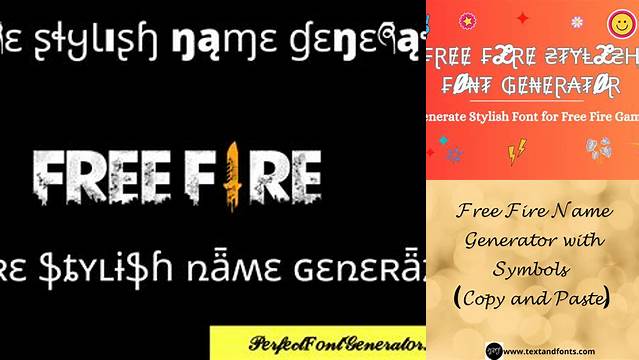
Stylish Free Fire Fonts: Generator, Copy & Paste Guide
Hey guys! Ever wondered how some Free Fire players have such cool and unique nicknames? Well, a big part of it is their font! If you're looking to stand out in the Free Fire arena and add some flair to your profile, you've come to the right place. In this article, we're diving deep into the world of Free Fire font generators, showing you how to copy and paste your way to a stylish nickname that'll make you the envy of your squad. Let’s explore everything you need to know about making your in-game name truly pop!
What are Free Fire Font Generators?
So, what exactly are these font generators we're talking about? Think of them as your personal nickname stylists! Free Fire font generators are online tools that allow you to convert regular text into a variety of fancy and stylish fonts that aren't typically available on your keyboard. These generators use Unicode characters – a vast collection of symbols and characters – to create these unique looks. This means you're not actually changing the system font on your device, but rather using special characters that resemble different font styles. The coolest part? You can copy and paste these fonts directly into Free Fire, making it super easy to change your nickname and add some pizzazz to your profile. With a Free Fire font generator, you can transform your mundane nickname into a memorable moniker that screams your personality. Whether you're into gothic, cursive, bold, or even bubbly fonts, there's a style out there for everyone. The best part is that these tools are generally very user-friendly. You simply type your desired name into the generator, and it spits out a bunch of options for you to choose from. It’s like having a wardrobe of fonts at your fingertips! So, if you’re ready to ditch the basic text and embrace a more stylish persona in Free Fire, these font generators are your best friend.
Why Use a Font Generator for Free Fire?
You might be thinking, "Why bother with a font generator?" Well, guys, there are tons of reasons why using a font generator for Free Fire is a fantastic idea. First and foremost, it's all about standing out. In a game with millions of players, a unique nickname can make a huge difference. It's your identity, your calling card in the virtual world. A stylish font catches the eye and makes you more memorable to both your teammates and opponents. Imagine dominating a match and having your unique name flash across the screen – pretty cool, right? Beyond aesthetics, a distinctive font can also add a touch of your personality to your in-game presence. Whether you're fierce, playful, mysterious, or anything in between, your font can help communicate that vibe. It's a subtle yet powerful way to express yourself without saying a word. Plus, let's be honest, it just looks awesome! Who wants a plain Jane nickname when you can rock a badass font that reflects your skills and style? And the best part? It's incredibly easy to do. Font generators are designed to be user-friendly, so you don't need any technical skills to create a stylish nickname. Just type, copy, and paste – it's that simple! So, if you're looking to up your Free Fire game, aesthetically speaking, a font generator is a no-brainer. It's a small change that can make a big impact, helping you leave your mark on the battlefield.
How to Use a Free Fire Font Generator: A Step-by-Step Guide
Okay, so you're convinced that a font generator is the way to go. Awesome! Now, let's walk through the simple steps of how to use a Free Fire font generator and get your new stylish nickname up and running. Don't worry, it's super easy – even if you're not a tech whiz. First things first, you'll need to find a font generator that you like. There are tons of options available online, so just do a quick search for "Free Fire font generator" and browse through the results. Many websites offer similar services, so pick one that looks user-friendly and has a variety of fonts to choose from. Once you've found your generator of choice, the real fun begins! Start by typing your desired nickname into the text box provided. This is where you get to be creative! Experiment with different names, words, and phrases until you find the perfect fit. After you've typed in your nickname, the generator will usually display a bunch of different font options below. This is where you get to see your name transformed into a variety of stylish designs. Scroll through the options and find a font that really speaks to you. Do you want something bold and aggressive? Or perhaps something elegant and cursive? The choice is yours! Once you've found the perfect font, simply click the "copy" button next to it. This will copy the stylized text to your clipboard, ready to be pasted into Free Fire. Now, fire up Free Fire and head to your profile settings. Look for the option to change your nickname and paste the font you copied into the text box. And voilà ! Your new stylish nickname is ready to go. Just save the changes, and you'll be rocking your new look in the game. It's that easy! So, go ahead and unleash your creativity – the perfect nickname is just a few clicks away.
Popular Font Styles for Free Fire
When it comes to font styles for Free Fire, the possibilities are almost endless! But to give you some inspiration, let's take a look at some of the most popular and eye-catching options out there. These styles are sure to make your nickname stand out and give you that extra edge in the game. First up, we have the bold and blocky fonts. These fonts are perfect for making a strong statement and projecting an image of power and dominance. They're easy to read and stand out clearly, even in the heat of battle. If you want to convey a sense of authority and confidence, a bold font is a great choice. On the other end of the spectrum, we have the cursive and script fonts. These fonts add a touch of elegance and sophistication to your nickname. They're perfect for players who want to project a more refined and stylish image. Cursive fonts can add a unique and artistic flair to your profile, making you stand out from the crowd. For those who want something a little more playful and fun, bubble fonts are a fantastic option. These fonts have a lighthearted and whimsical feel, perfect for players who don't take themselves too seriously. Bubble fonts can add a touch of personality and charm to your nickname, making you more approachable and friendly. If you're looking for something a little edgier and more mysterious, gothic fonts are the way to go. These fonts have a dark and dramatic feel, perfect for players who want to project an image of intensity and intrigue. Gothic fonts can add a touch of rebellion and attitude to your nickname, making you a force to be reckoned with. And of course, we can't forget about Unicode symbol fonts. These fonts use a variety of special characters and symbols to create unique and eye-catching nicknames. From stars and hearts to swords and skulls, the possibilities are endless. Unicode symbol fonts are perfect for players who want to get really creative and express their individuality. So, whether you're into bold and powerful, elegant and sophisticated, or playful and fun, there's a font style out there for you. Experiment with different options and find a style that truly reflects your personality and gaming style.
Tips for Choosing the Best Font
Choosing the best font for your Free Fire nickname can feel a bit overwhelming with so many options available. But don't worry, guys, I've got some tips to help you nail the perfect style that reflects your personality and gaming vibe. First off, think about the overall vibe you want to project. Are you a fierce warrior, a playful trickster, or a stylish strategist? Your font should align with the image you want to convey. If you're all about dominating the battlefield, a bold or gothic font might be the way to go. If you prefer a more laid-back and friendly approach, a bubble or cursive font could be a better fit. The key is to choose a font that feels authentic to you. Next up, consider readability. While fancy fonts can look super cool, they're not always the easiest to read. In the heat of battle, you want your teammates and opponents to be able to quickly identify your name. So, while you want a font that stands out, make sure it's still legible. Avoid fonts that are too intricate or cluttered, as they can be difficult to decipher at a glance. Another important factor to consider is compatibility. While most Free Fire font generators use Unicode characters that are widely supported, there's always a chance that certain fonts might not display correctly on all devices. To avoid any surprises, it's always a good idea to test your new nickname on different devices or ask a friend to check how it looks on their screen. This will ensure that your stylish font shows up exactly as you intended. Don't be afraid to experiment! The best way to find the perfect font is to try out a few different options. Play around with different styles, sizes, and combinations until you find something that really clicks. Most font generators make it super easy to preview your nickname in different fonts, so take advantage of this feature. And last but not least, have fun with it! Choosing a font for your Free Fire nickname is a chance to express your creativity and individuality. So, don't stress too much about making the perfect choice – just pick something that you love and that makes you feel confident and stylish. Remember, your nickname is your identity in the game, so make it count!
So there you have it, guys! Everything you need to know about using a Free Fire font generator to copy and paste your way to a stylish nickname. With a little creativity and these handy tools, you can transform your in-game name from blah to bam in no time. Remember, your nickname is your personal brand in the Free Fire world, so make it stand out! A unique and eye-catching font can help you express your personality, intimidate your opponents, and leave a lasting impression on your teammates. Whether you're into bold and powerful, elegant and sophisticated, or playful and fun, there's a font style out there for everyone. Just follow the simple steps we've outlined in this article, and you'll be rocking a stylish new nickname in no time. Don't be afraid to experiment with different options and have fun with the process. The perfect font is out there waiting for you, so go ahead and unleash your creativity! And who knows, maybe your unique nickname will even inspire other players to up their game. So go out there, dominate the battlefield, and let your stylish name shine! With a Free Fire font generator, the possibilities are endless, and your in-game persona is about to get a major upgrade. Happy gaming, and may your nickname always be on point! Remember, it's all about making your mark and having a blast while doing it. So get creative, get stylish, and get ready to conquer the Free Fire arena with your awesome new font!